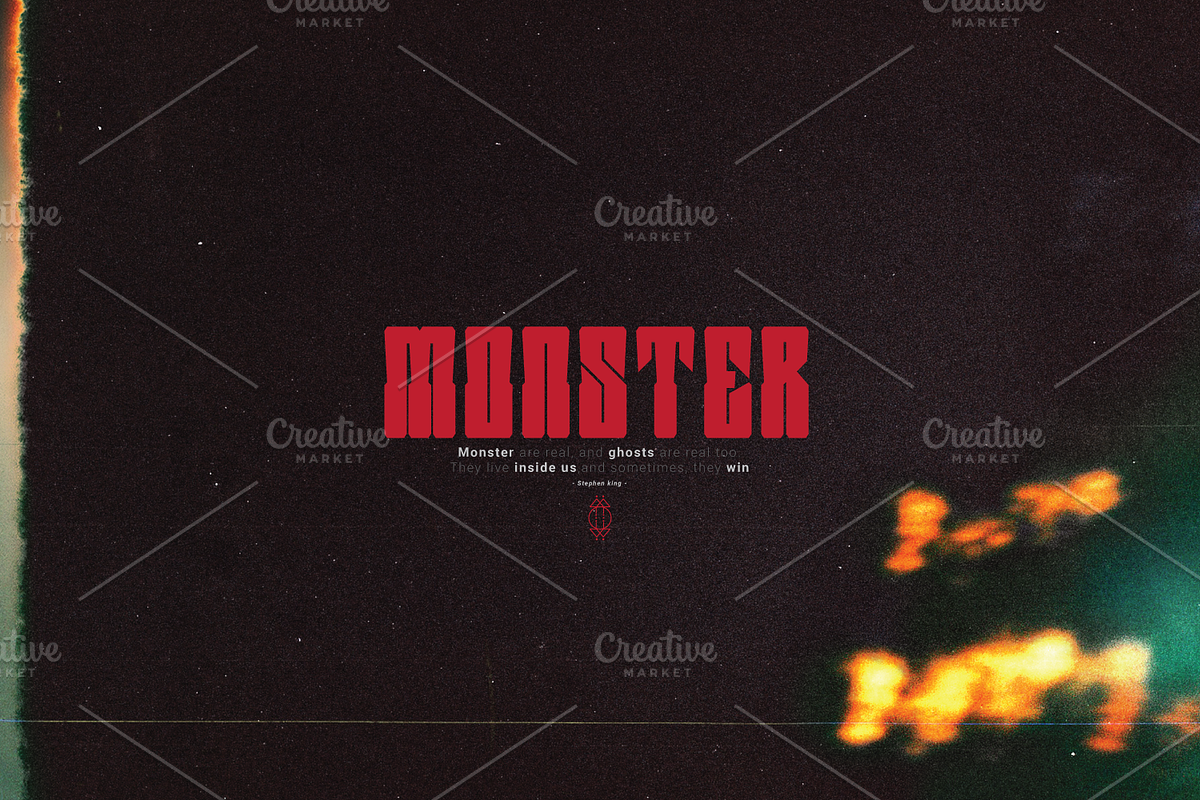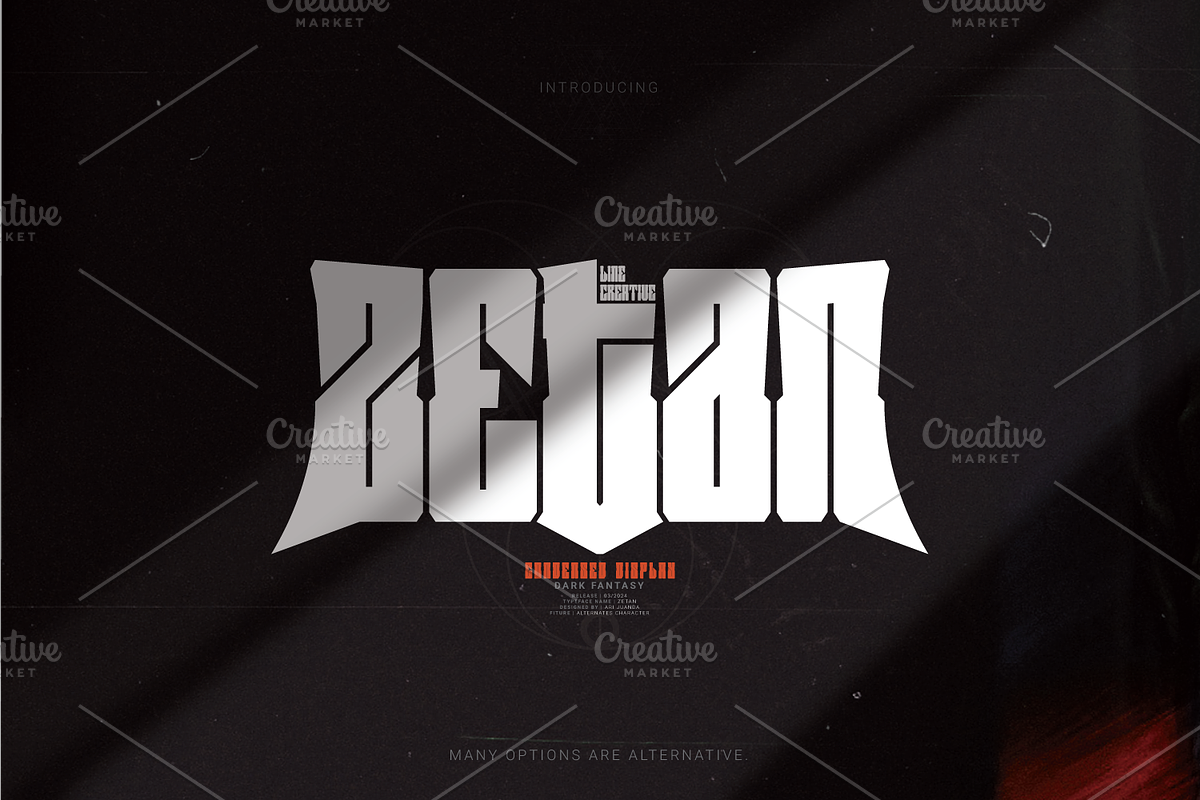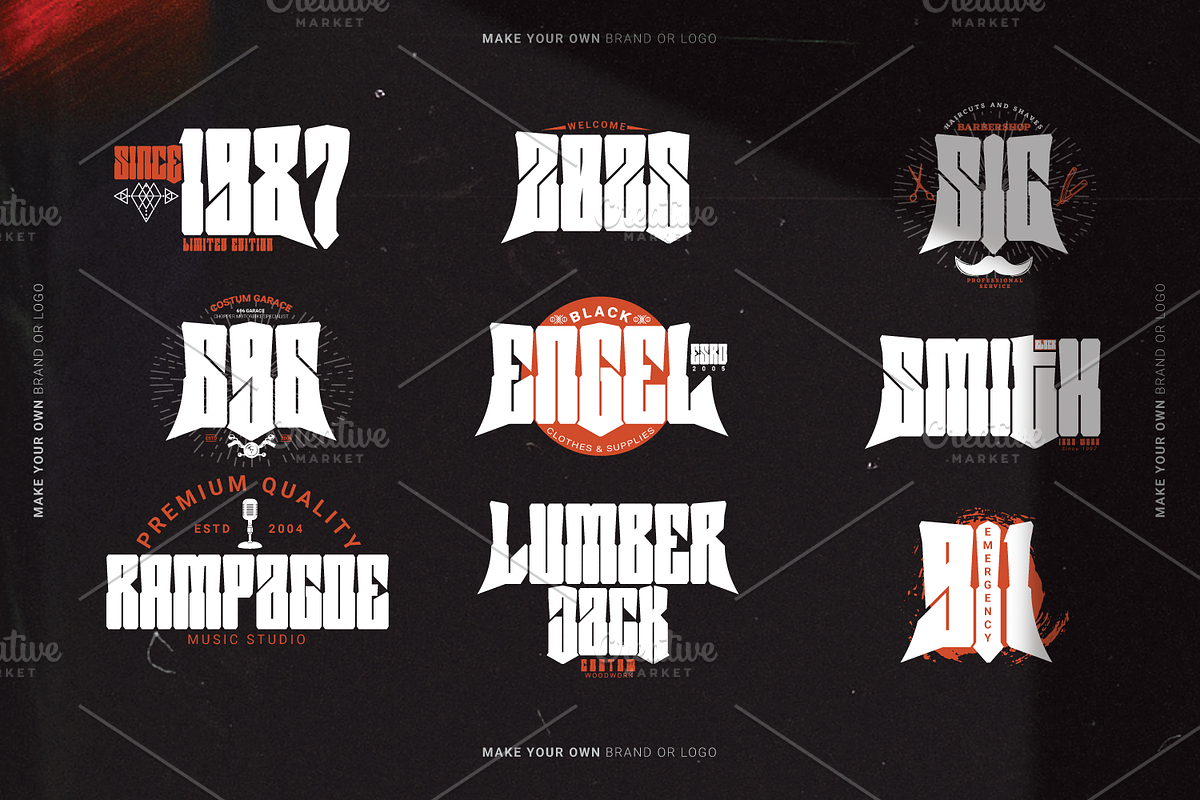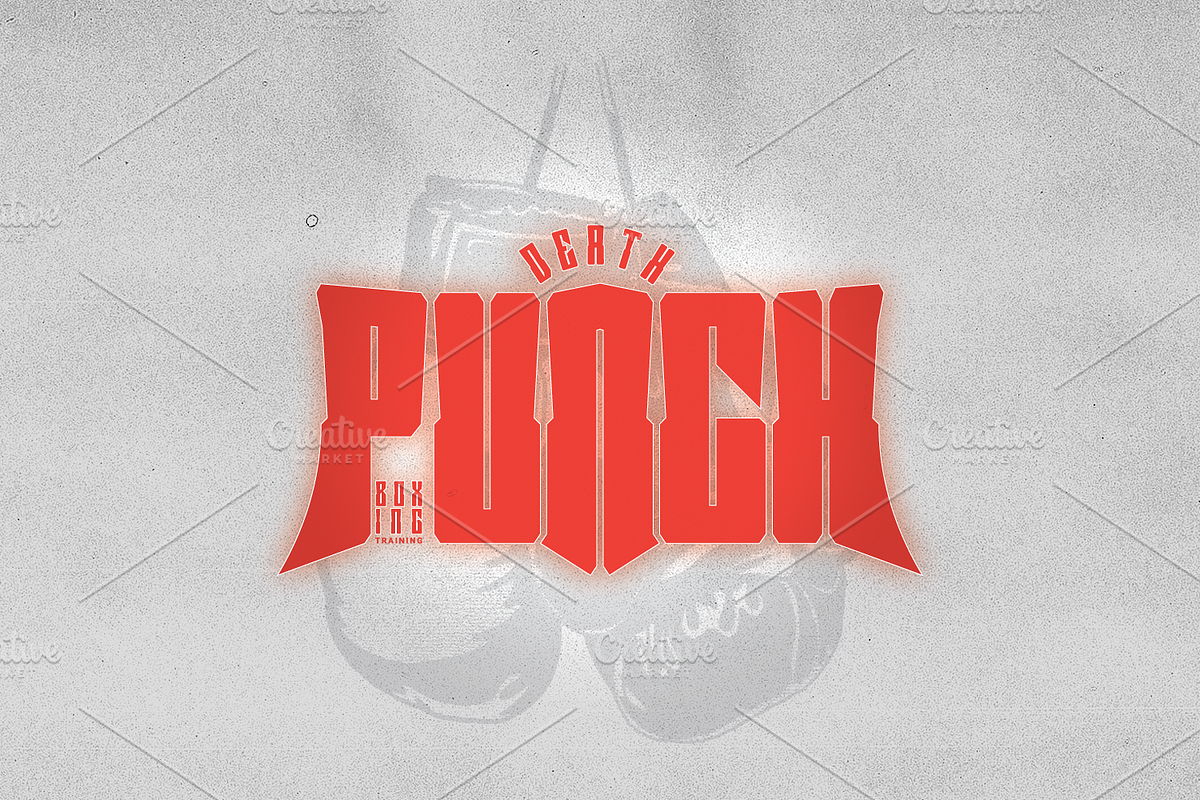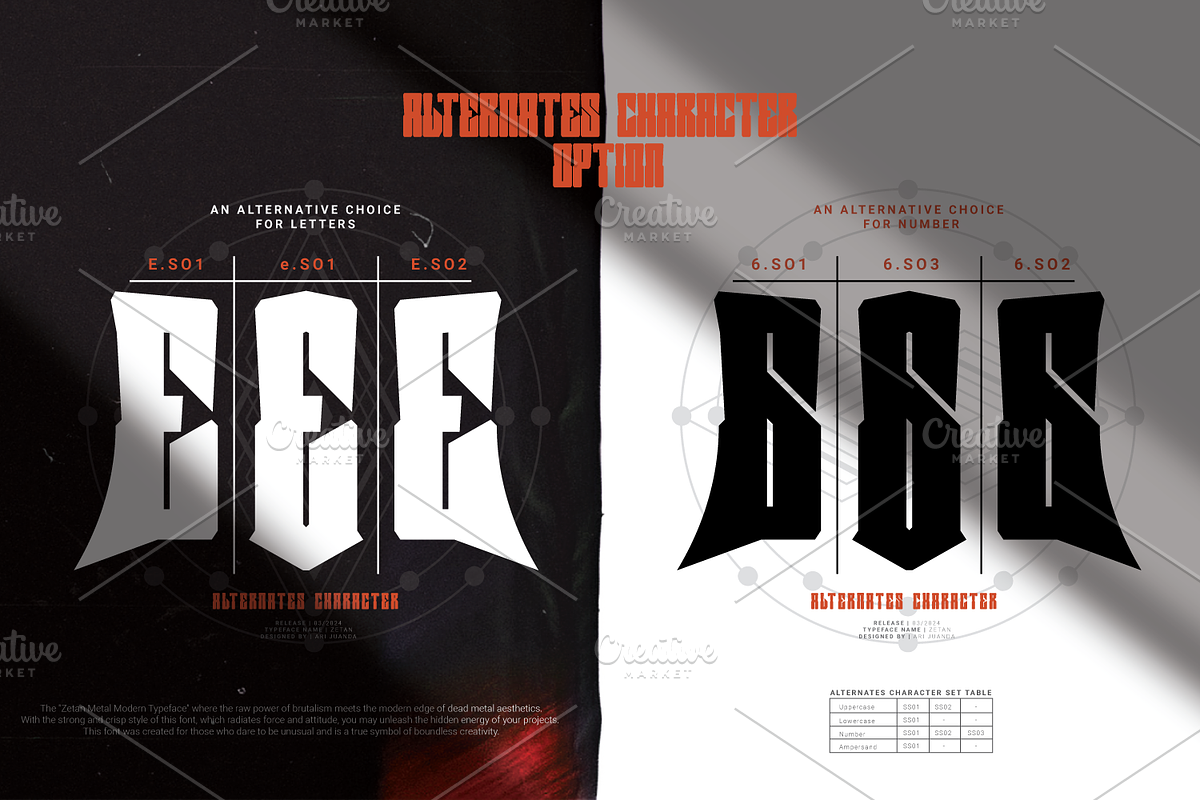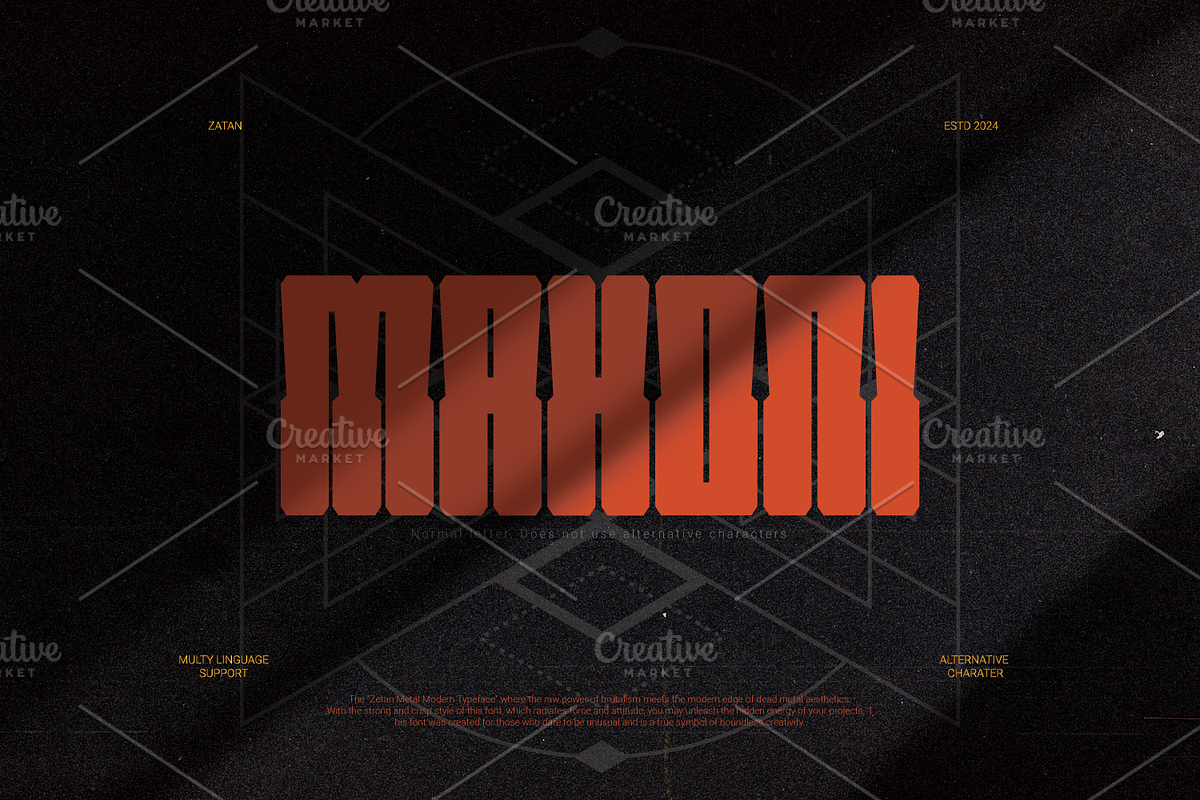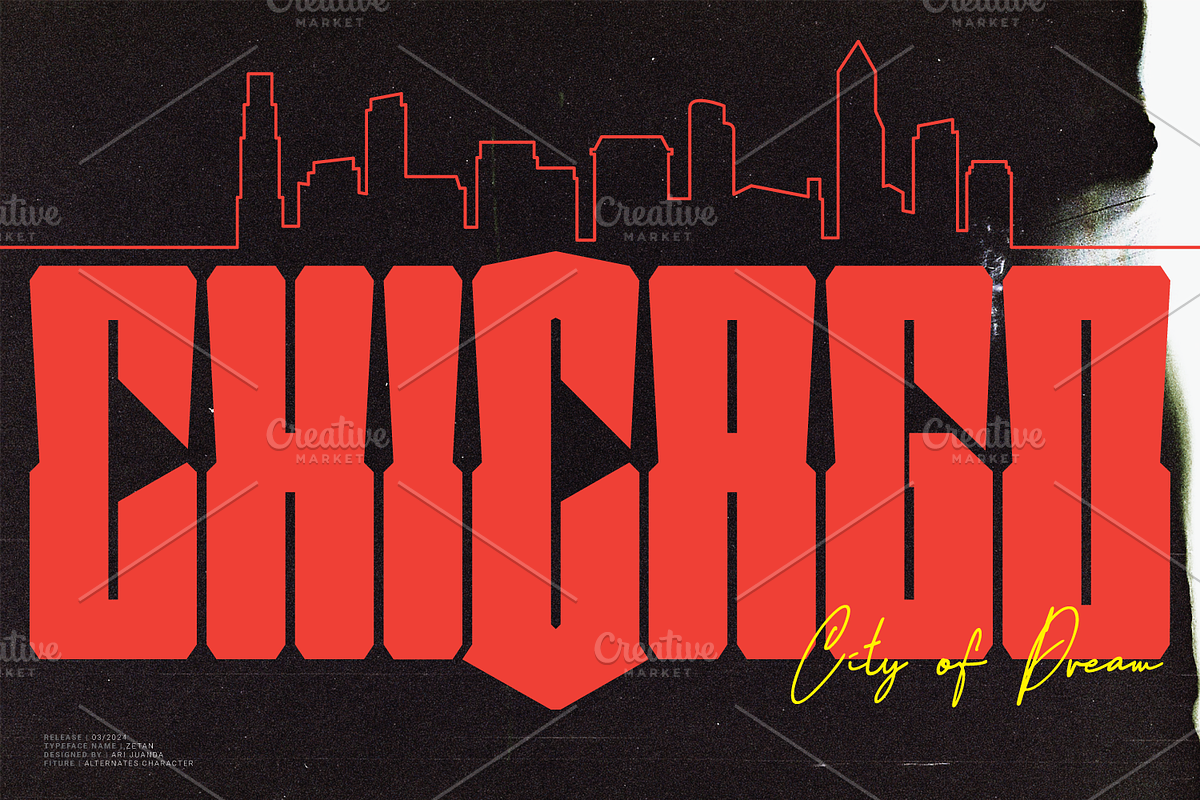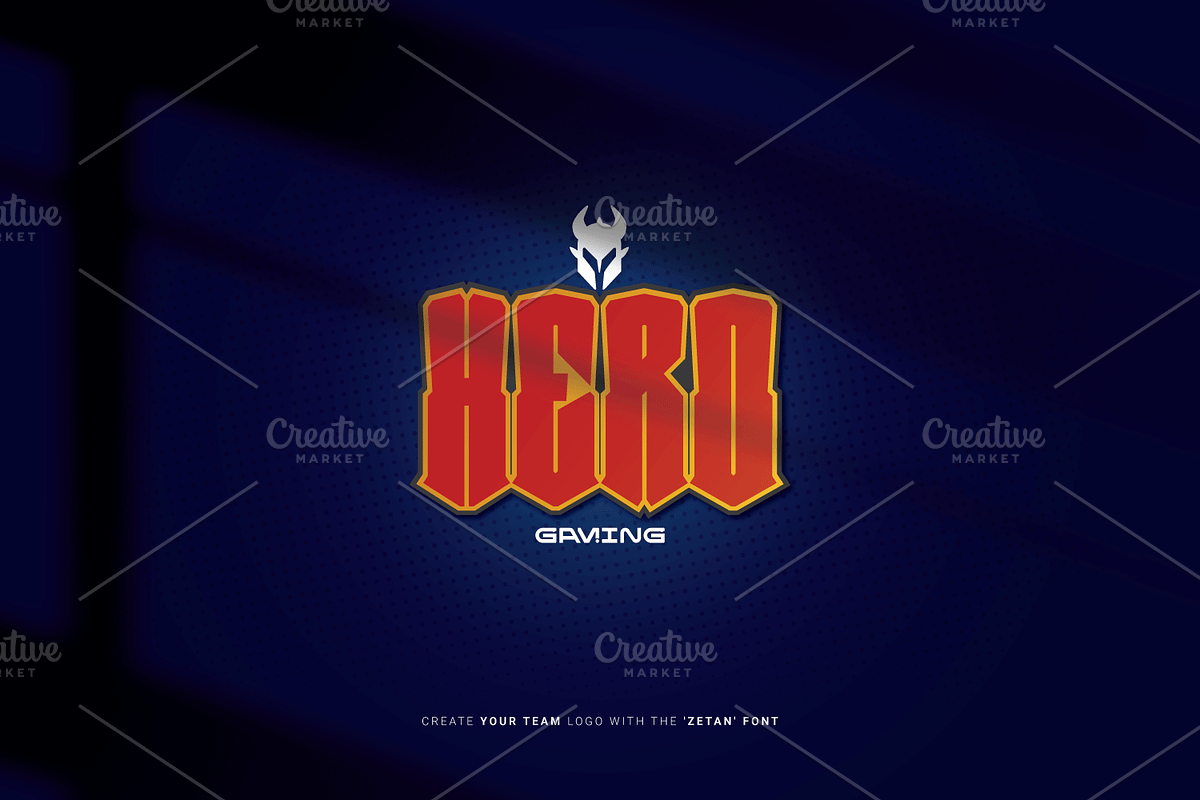
Zetan-Metal Modern Typeface
Zetan is a bold condensed font that blends the raw strength of a brutalism typeface with the sharp intensity of a modern metal typeface. Designed as a powerful dark fantasy font, it delivers a strong and commanding presence through its solid structure and distinctive cuts.
Even in its default form, Zetan feels forceful and intentional. But its true versatility shines as a display font with alternates — allowing you to mix default characters with stylistic options to completely change the mood of your text. From solid and controlled to aggressive and high-energy, Zetan gives you multiple personalities in a single typeface.
Created for designers who want typography with real attitude, Zetan turns every headline into a statement.
Dark fantasy and metal-inspired branding
Logo design, posters, and album artwork
Esports, gaming, and streetwear projects
Band merchandise and event titles
High-impact editorial and promotional design
Bold condensed structure with strong visual weight
Sharp cuts and solid letterforms
Stylistic alternates for Uppercase (SS01, SS02)
Stylistic alternate for Lowercase (SS01)
Multiple number alternates (SS01, SS02, SS03)
Alternate ampersand
OpenType support: salt, ss01–ss03, aalt
Multilingual Latin character set
Why You’ll Love Zetan
Zetan stands out as a bold condensed font that doesn’t rely on decoration to make an impact. As a brutalism typeface with modern metal energy, it already feels powerful in its default state. Activate the alternates, and it transforms into a more aggressive and expressive display font with alternates — perfect for projects that need both strength and character.
Whether you’re building a dark fantasy identity or a high-energy modern metal look, Zetan delivers the force and flexibility to match your vision.